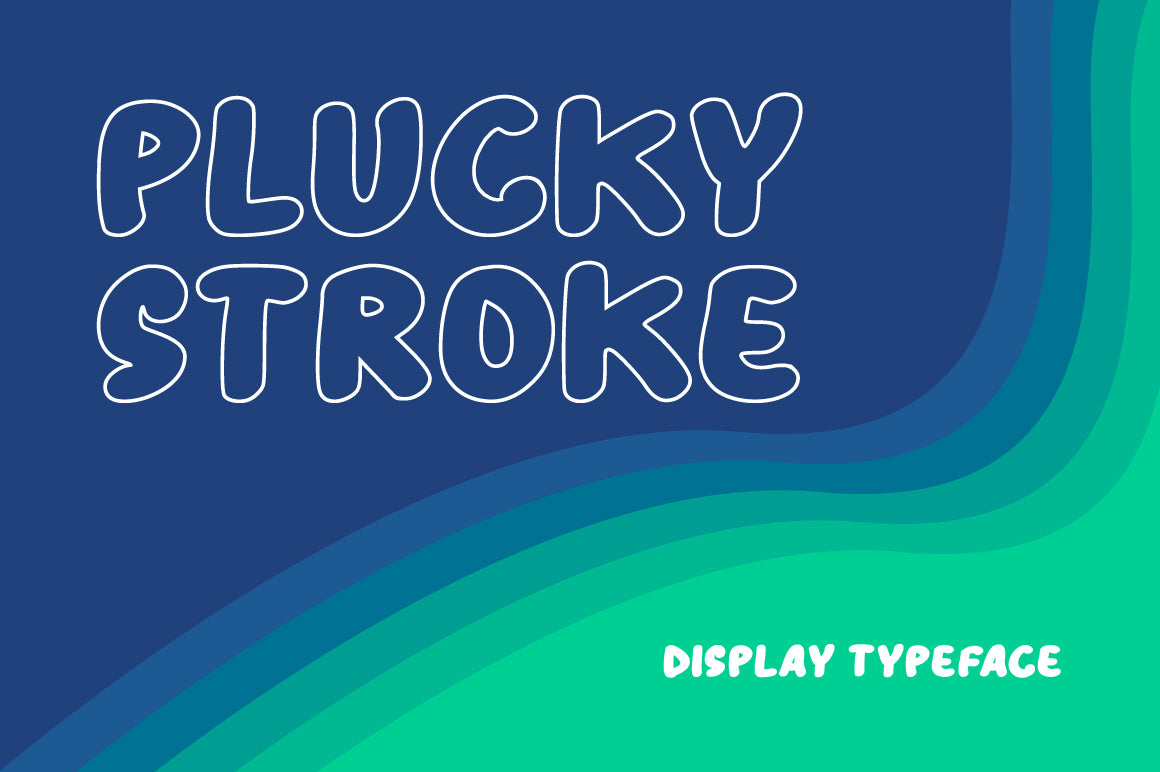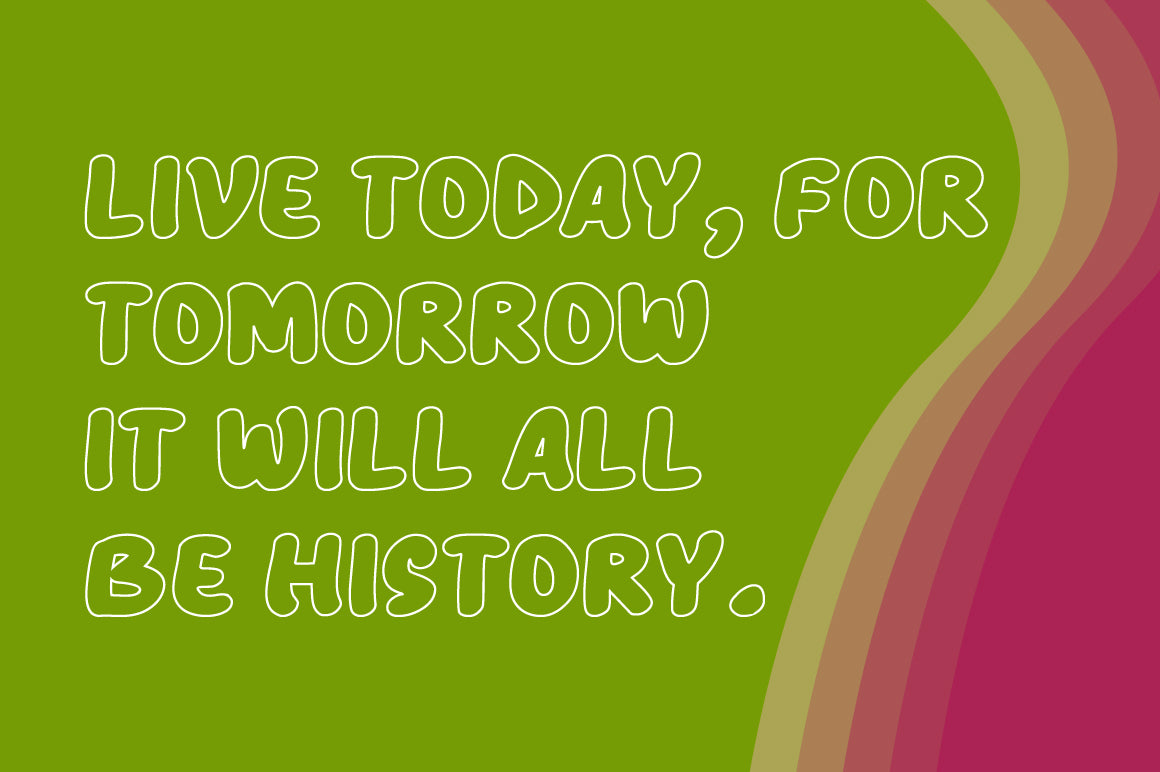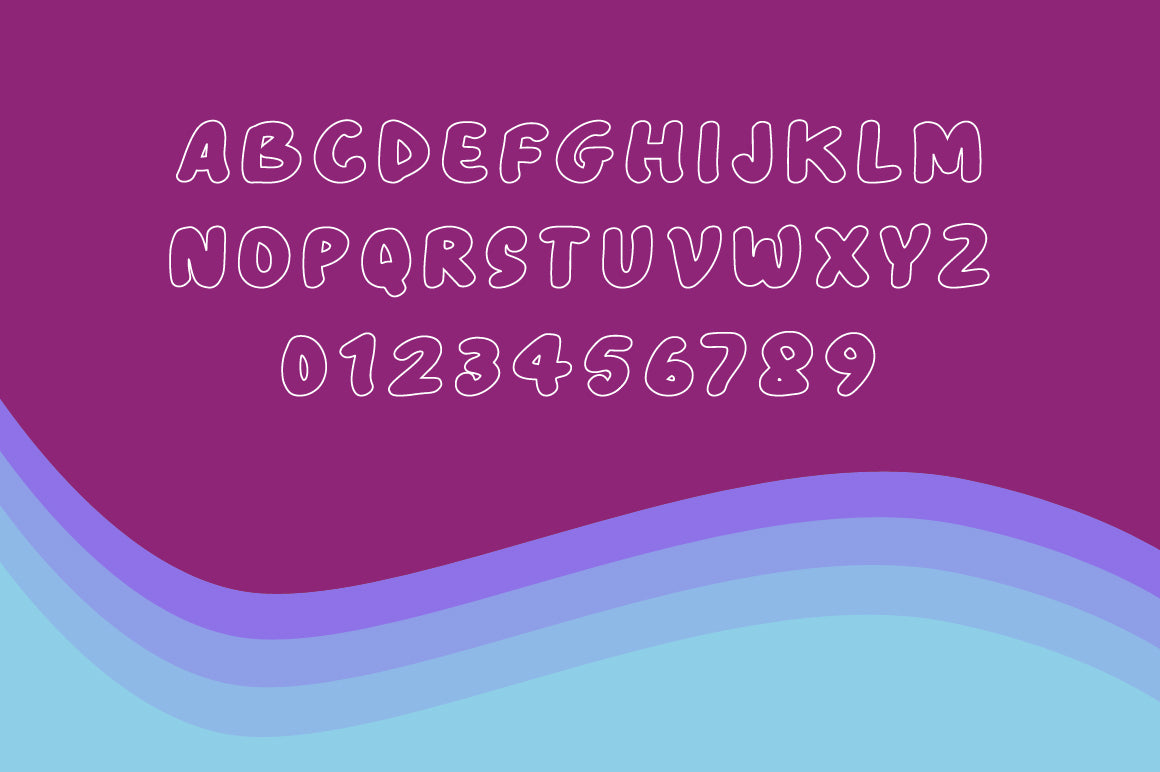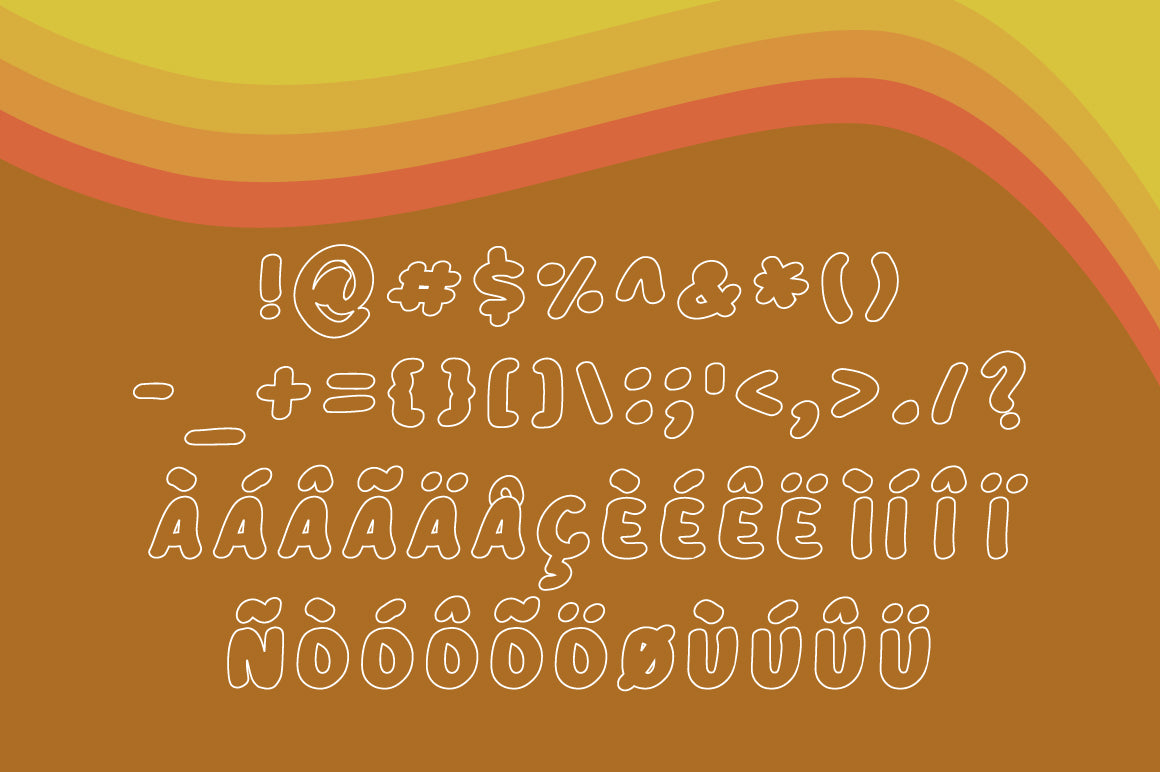
Plucky Stroke Font
Plucky Stroke is a fun and modern outline display font that brings personality and charm to any project. With its bold, rounded letterforms and playful style, it's perfect for headlines, posters, children’s designs, packaging, and creative branding.
The clean, outlined strokes make it easy to pair with colorful backgrounds or layered effects, and its versatility allows it to shine in both digital and print formats. Whether you're aiming for a retro vibe or a cheerful contemporary look, Plucky Stroke adds a friendly, eye-catching flair to your designs.